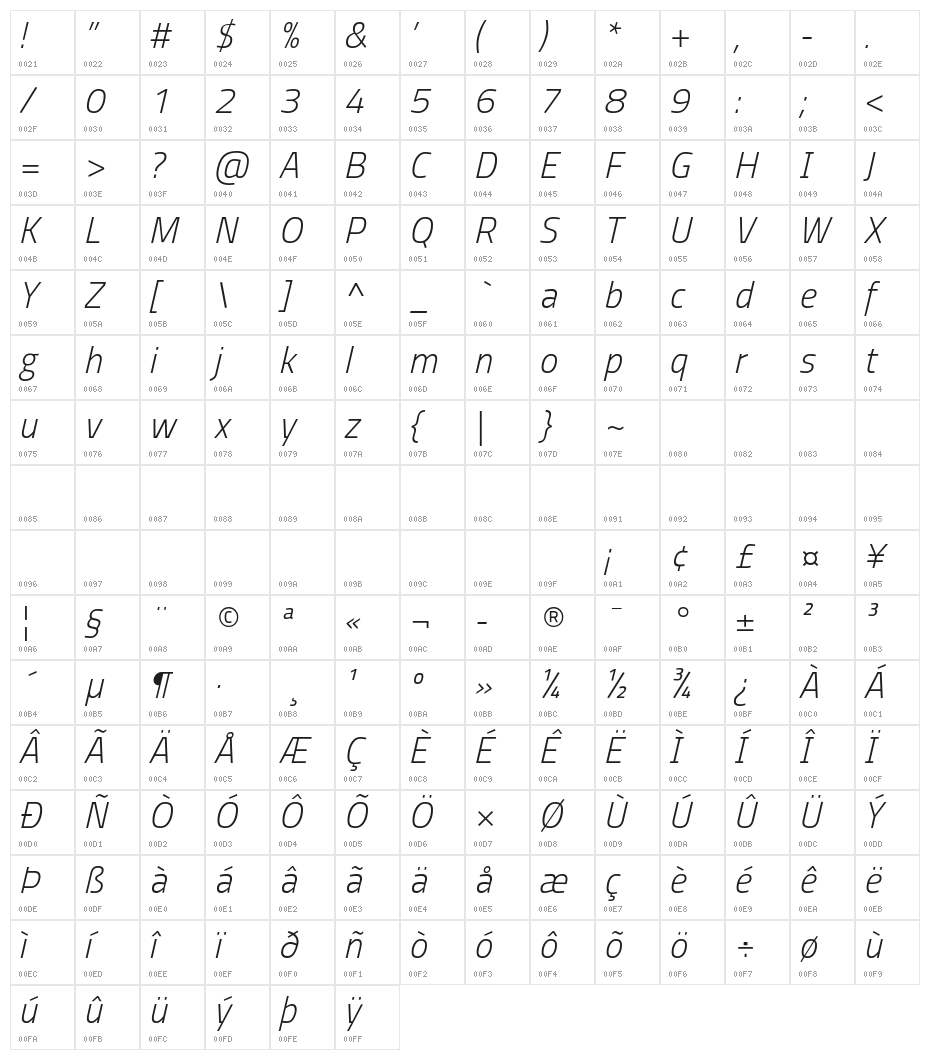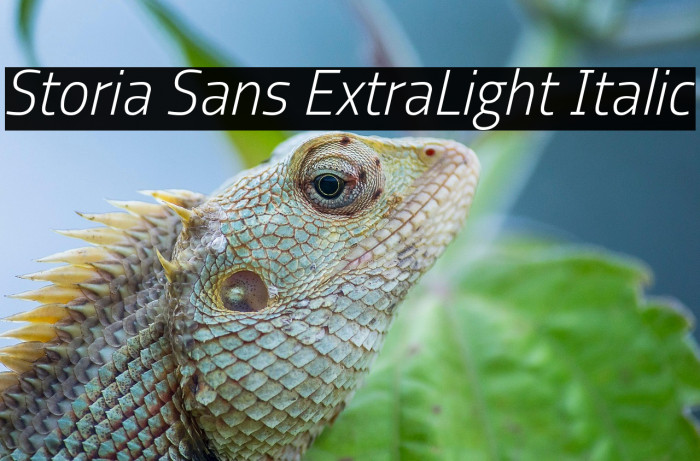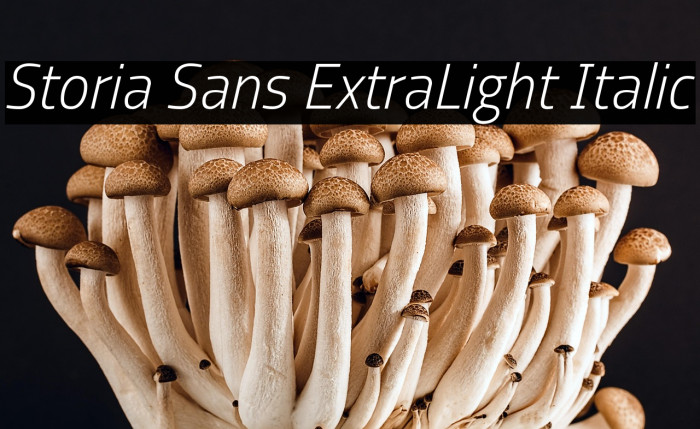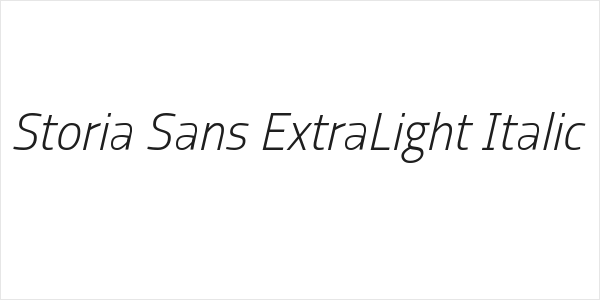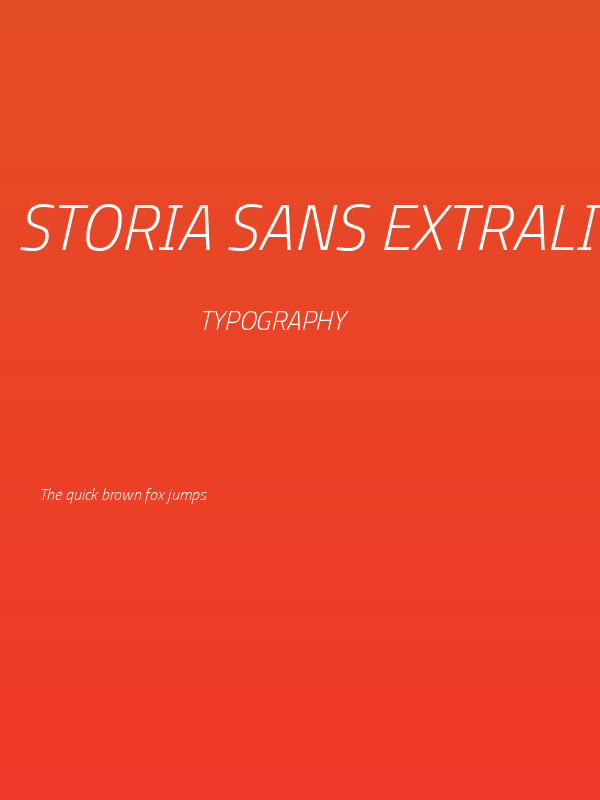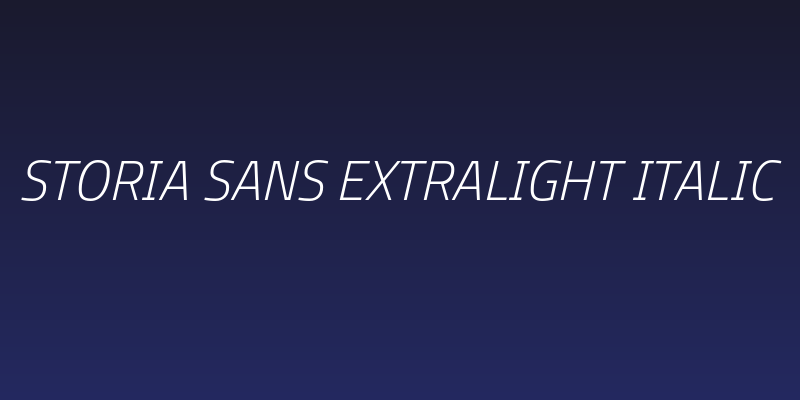
Storia Sans ExtraLight Italic Font
Storia Sans ExtraLight Italic Description
This font features a sleek and modern sans-serif design with an extra light weight, giving it an airy and elegant appearance. The italic style adds a dynamic and fluid touch, making it suitable for contemporary and stylish applications. The characters are well-proportioned with a slight slant, enhancing readability while maintaining a sophisticated look. The font includes a full set of uppercase and lowercase letters, numerals, and a variety of special characters, ensuring versatility for different design needs.
| Proposed Projects | Ideal for fashion magazines, modern branding, elegant invitations, and minimalist web design. |